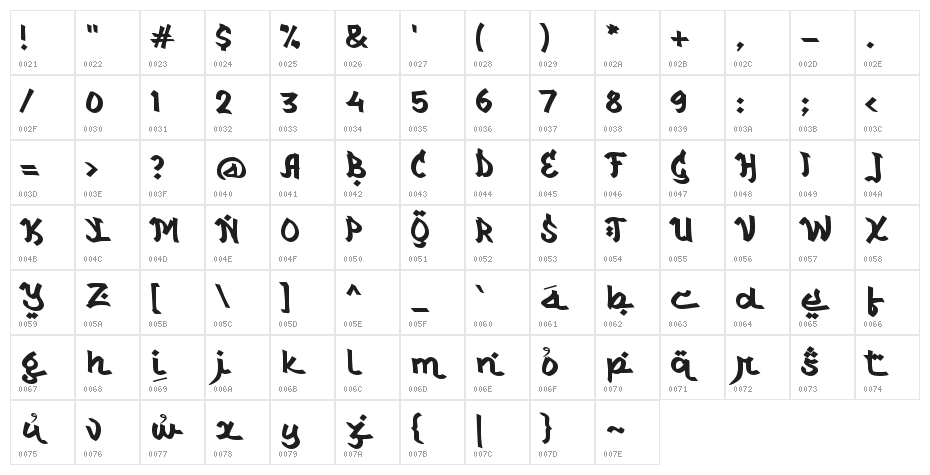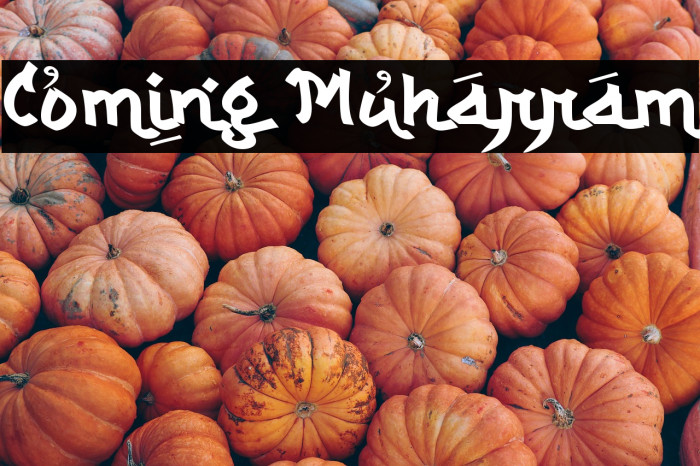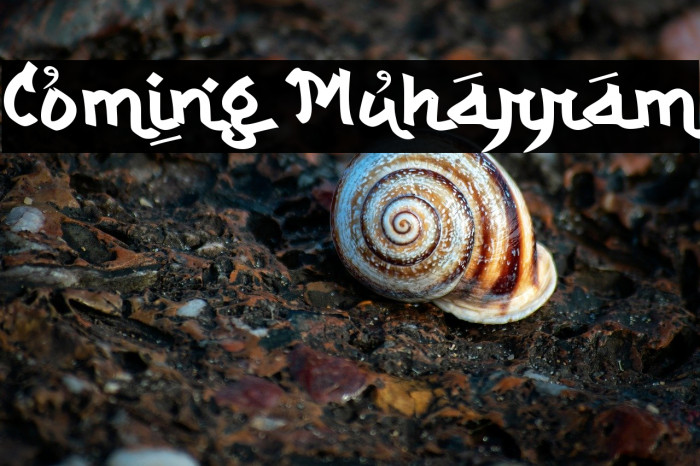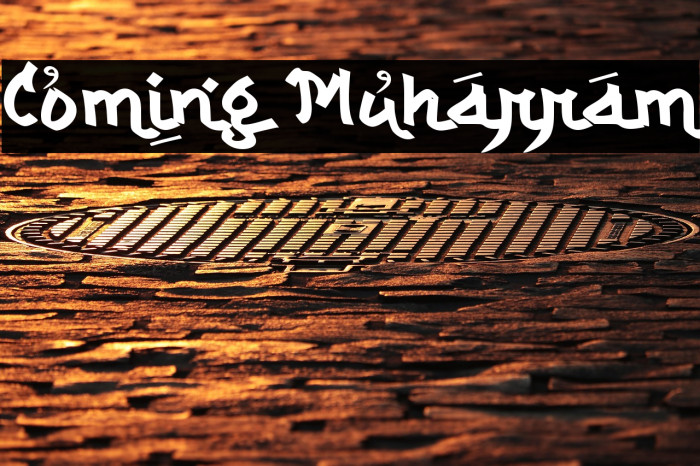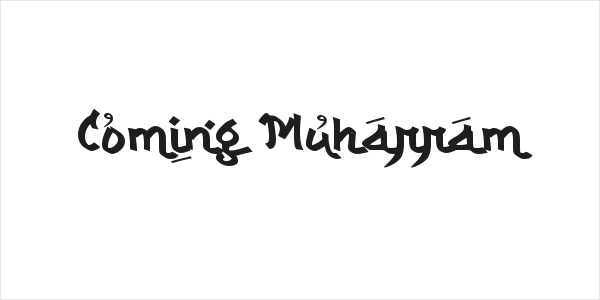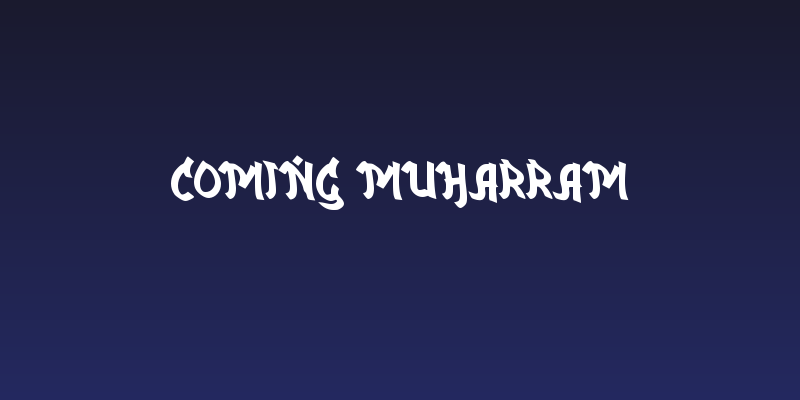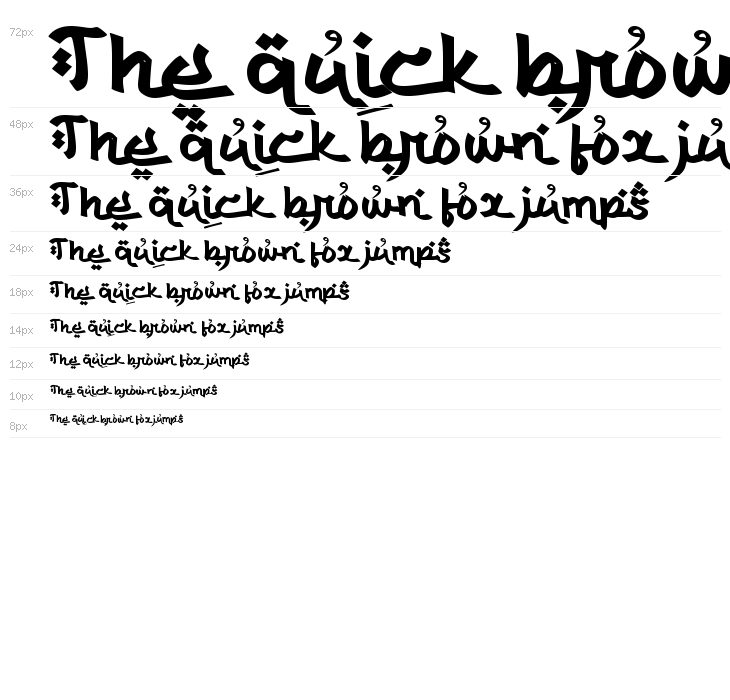
Coming Muharram Font
Coming Muharram Description
This font features a bold and dynamic style with a strong calligraphic influence. The letters are characterized by thick strokes and sharp, angular edges, giving it a distinctive and energetic appearance. The uppercase and lowercase letters maintain a consistent style, with some letters featuring unique flourishes and accents. The numerals are bold and easily readable, complementing the overall design. Special characters are included, maintaining the same bold and expressive style. This font is ideal for projects that require a strong visual impact and a touch of artistic flair.